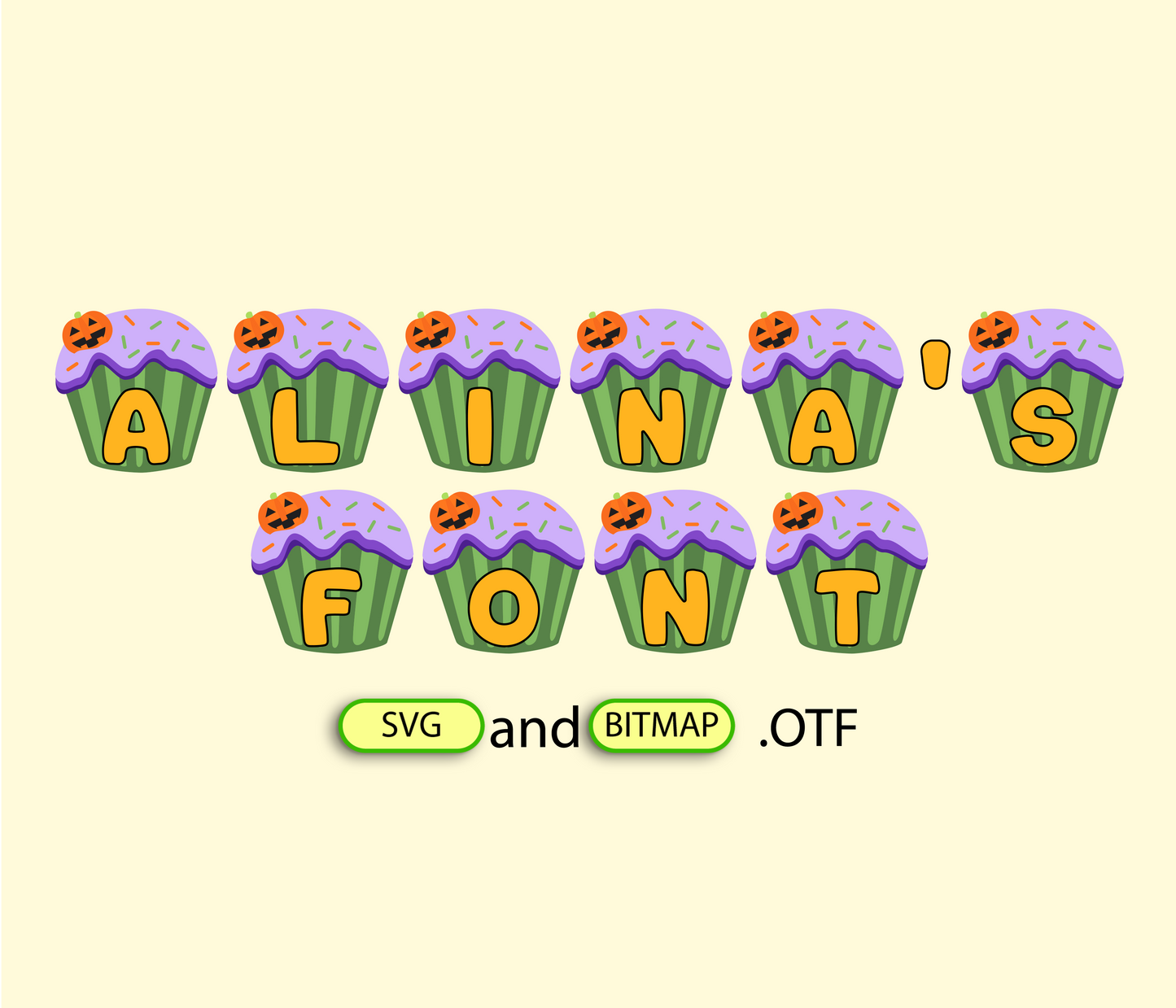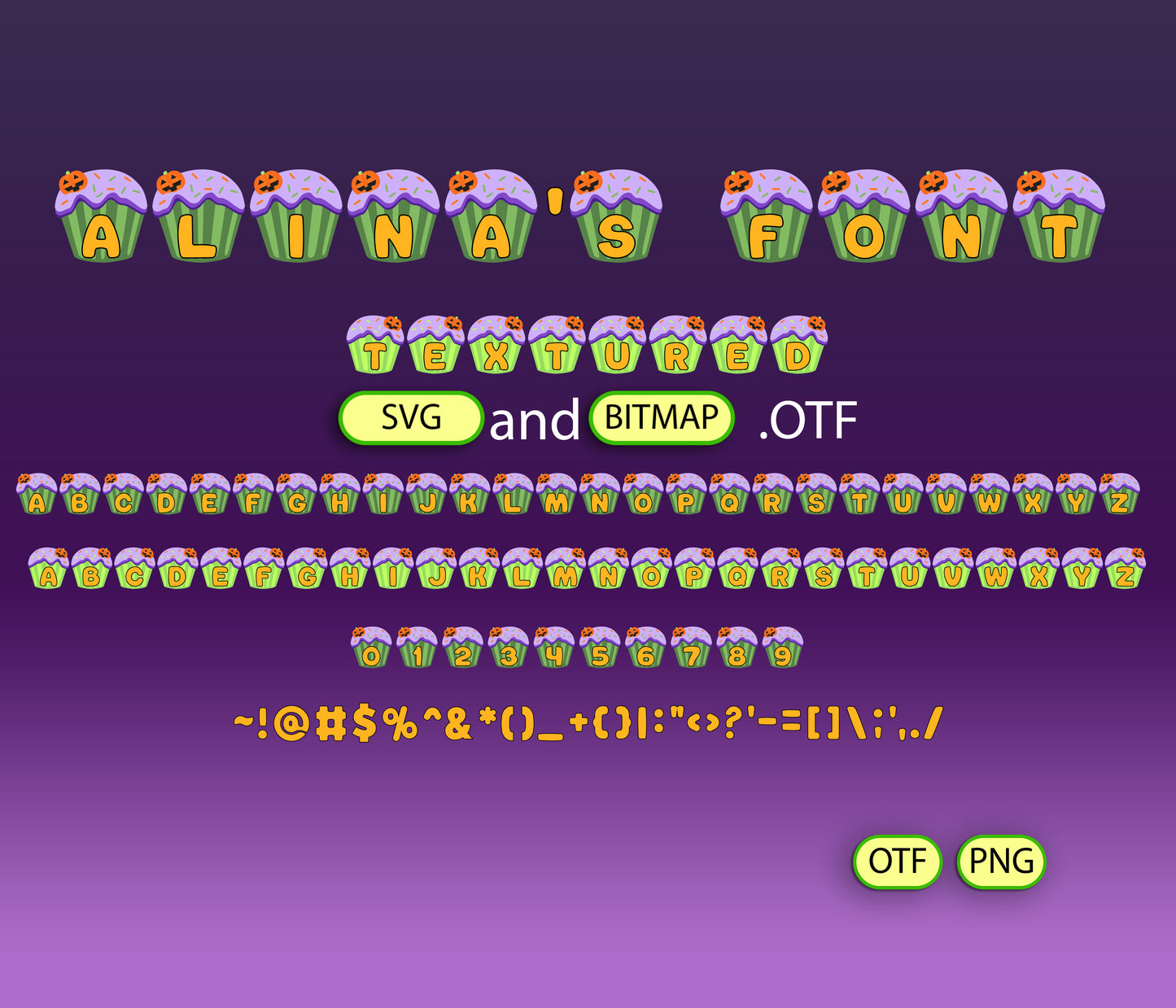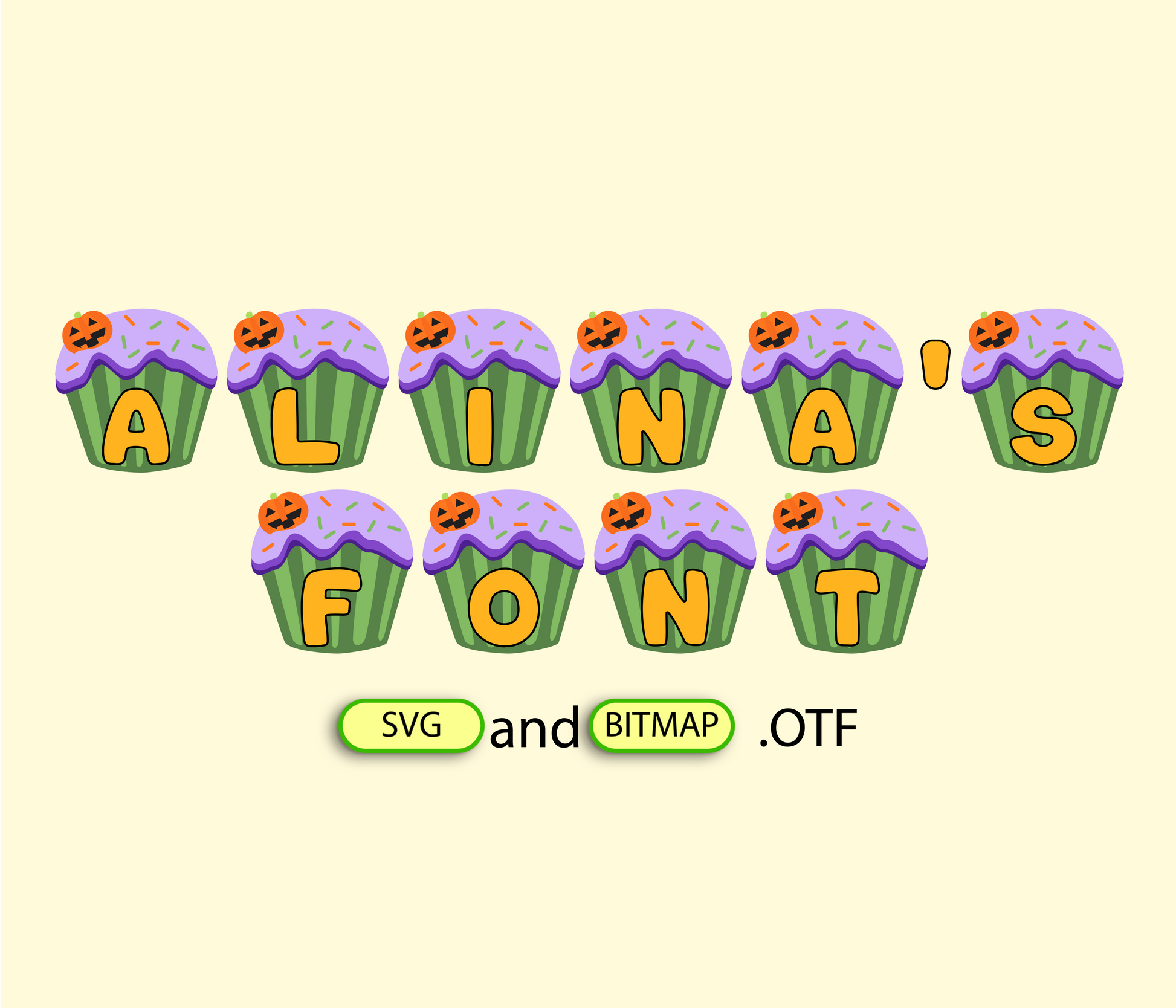
Halloween Muffin Color Pattern Font
The Sweet Charm of Halloween Muffin Font
Delight in the playful fusion of Halloween and culinary delights with our Halloween Muffin Bundle Fonts. This collection is a perfect blend of the spooky essence of Halloween with the cozy, heartwarming feel of freshly baked muffins. Each font in the bundle is sprinkled with elements that evoke the joy of Halloween treats, making it ideal for those who wish to add a touch of whimsy and sweetness to their Halloween-themed projects.
What font is the Halloween Color Fonts?
Imagine a series of typefaces that encapsulate the spirit of a festive Halloween bakery. These fonts are designed to echo the playful, charming characteristics of Halloween, combined with the delightful aesthetic of muffins. The character set in each font includes alphabets, numbers, and special symbols, all designed with a subtle nod to Halloween themes and the comforting shapes of baked goods. This bundle offers a versatile toolkit for a wide range of design projects, from bakery promotions to Halloween party invitations.
What Can You Do With Halloween Color Fonts?
The Halloween Muffin Bundle Fonts are perfect for a variety of fun and engaging applications:
- Bakery and Café Promotions: Ideal for creating marketing materials for bakeries and cafes offering Halloween-themed treats.
- Halloween Party Invitations: Craft unique invitations that blend the festive spirit with a touch of culinary charm.
- Seasonal Decorations: Design delightful decorations for Halloween events, bake sales, or themed parties.
- Custom Apparel: Create fun, food-themed clothing and accessories for Halloween festivities.
- Digital Content: Enhance websites, social media, and online platforms with festive, bakery-inspired typography.
- Educational Materials: Use in teaching resources for cooking classes or Halloween-themed lessons.
- Greeting Cards and Stationery: Design personalized stationery and cards with a sweet, spooky twist.
- Product Packaging: Use the fonts for packaging design of Halloween-themed bakery products.
- Artistic and DIY Projects: Perfect for scrapbooking, crafting, and artistic projects inspired by Halloween and baking.
- Retail Displays: Develop eye-catching signage and displays for shops and food establishments.
The Halloween Muffin Bundle Fonts is more than just a collection of typefaces; it's a delightful mix of the spooky and the sweet.